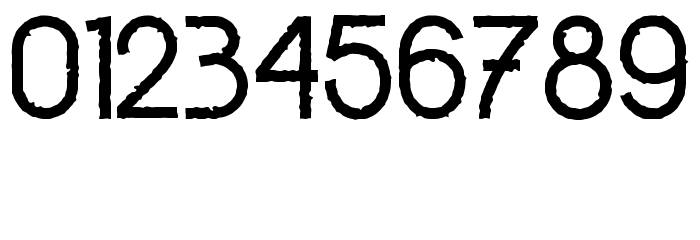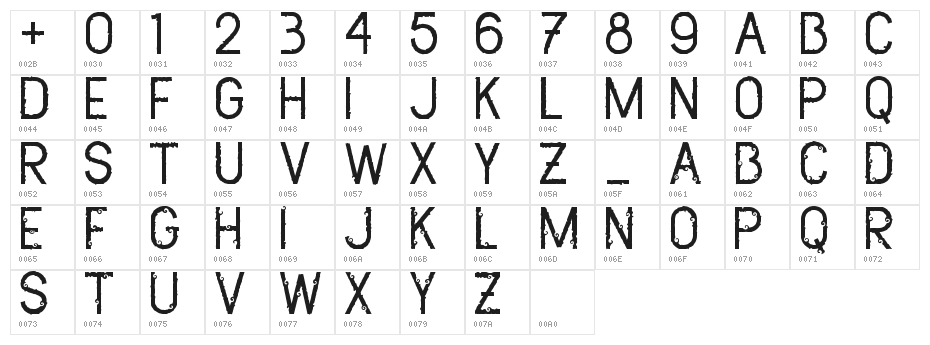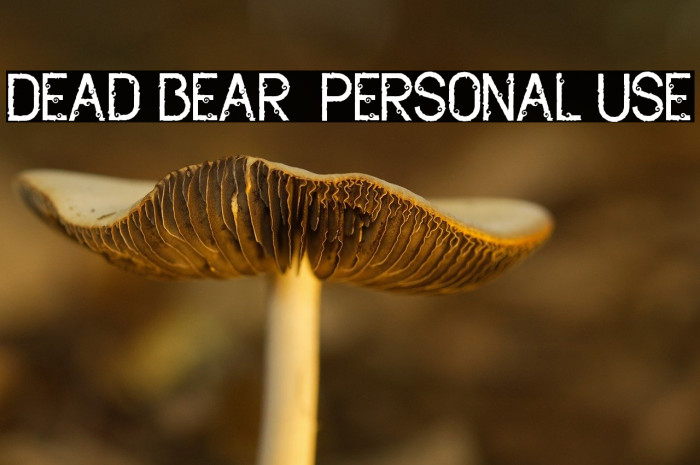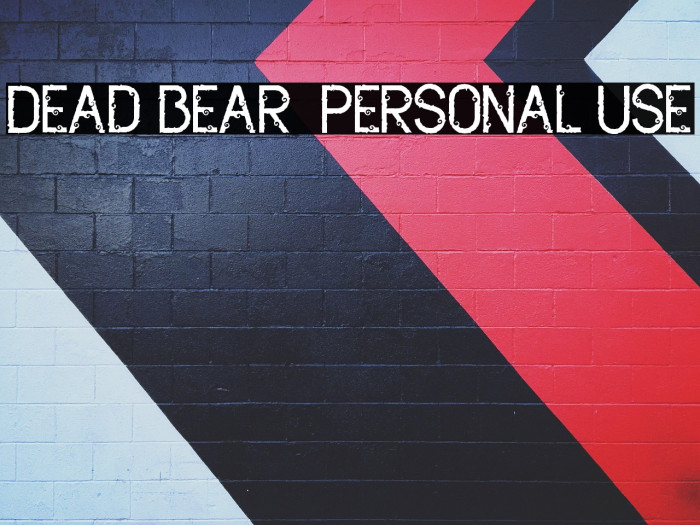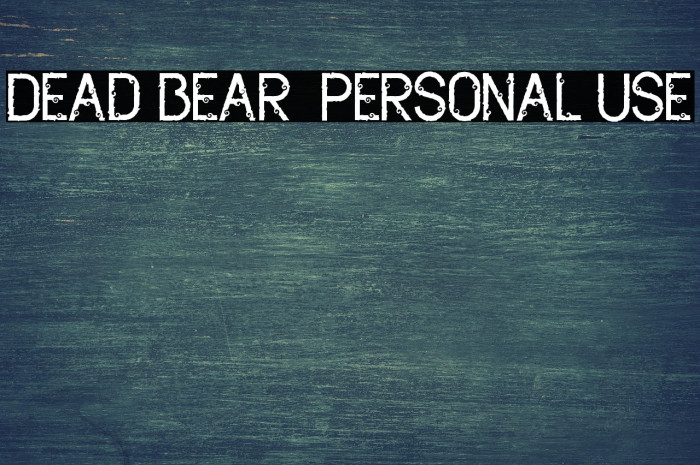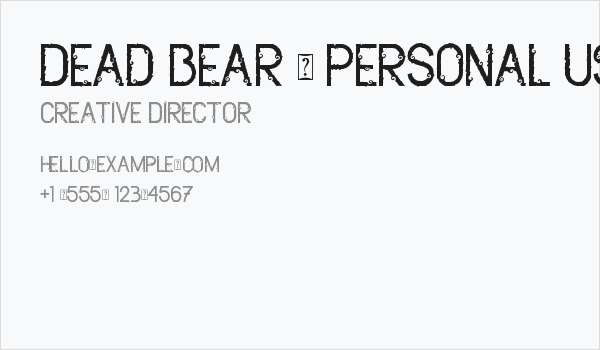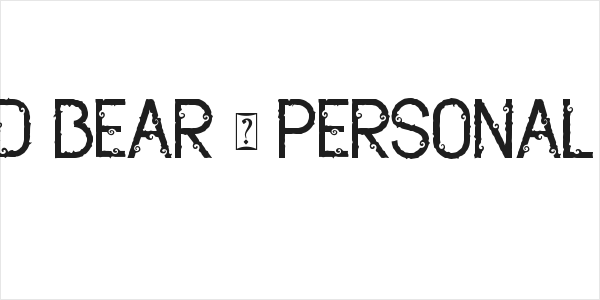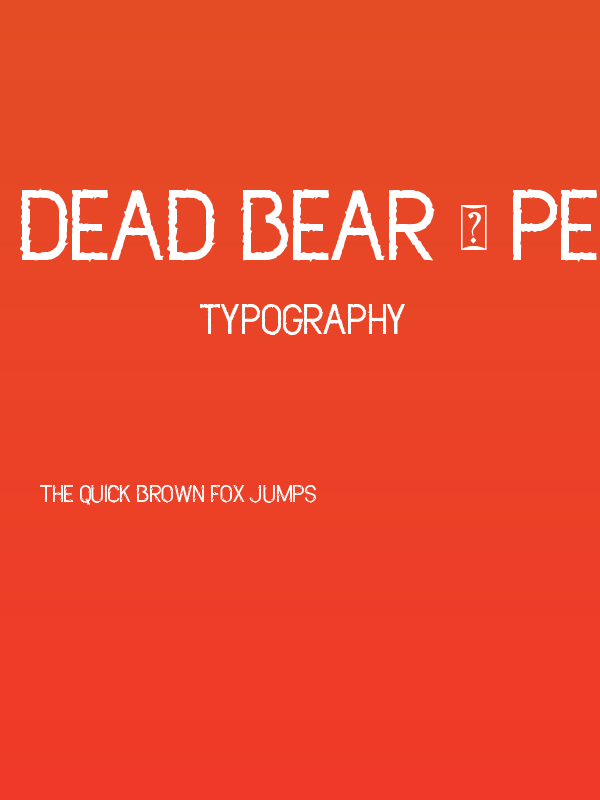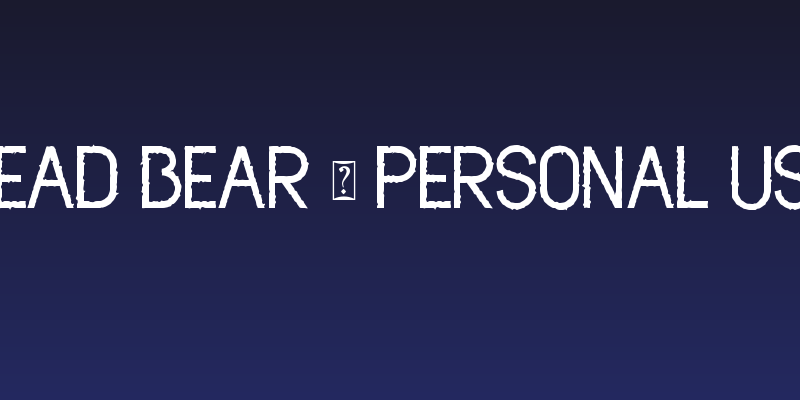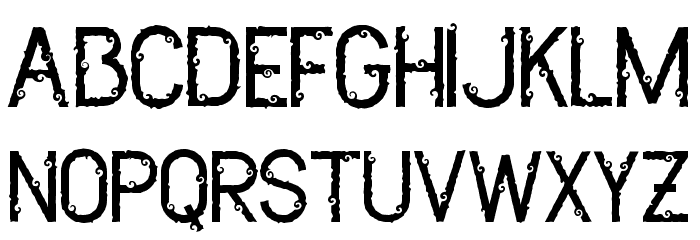
Dead Bear - Personal Use Font
Dead Bear - Personal Use Description
This font features a unique, distressed style with a decorative twist. Each character is adorned with small, circular embellishments that give it a playful yet edgy appearance. The uppercase and lowercase letters maintain a consistent height and width, creating a uniform look across the board. The numbers follow the same design principles, ensuring cohesion throughout. This font's distinctive style makes it stand out, perfect for projects that require a touch of creativity and boldness. The overall design is both modern and slightly vintage, offering versatility in its application.
| Overall Style | Modern, Vintage |
| Proposed Projects | Ideal for posters, album covers, branding, and any creative projects that need a bold statement. |